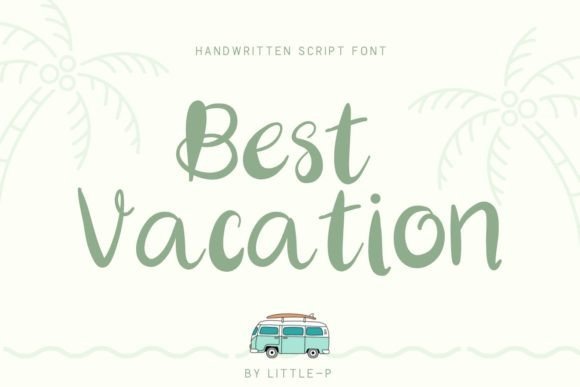
Adding a Personal Touch to Your Creations
As a designer, there’s nothing quite like the feeling of bringing a project to life. Whether it’s a wedding invitation, a birthday card, or a simple quote, the right font can make all the difference in conveying your message and capturing the essence of the occasion. And, let’s be honest, there’s nothing quite like the joy of browsing through font collections, searching for that perfect combination of style and personality.
That’s where the Best Vacation Font comes in – a beautiful handwriting script font that exudes a friendly feel and lends an elegant touch to your designs. With its calligraphy-inspired scripts, this font is ideal for all your DIY projects, from wedding invitations to T-shirts, and everything in between.
Key Features of “Best Vacation Font”
- Unique Characteristics: Features a unique blend of modern and vintage elements, perfect for travel and adventure-themed designs
- Kerning and Ligatures: Includes advanced kerning and ligature pairs for improved text readability and aesthetic appeal
Designer Review: Best Vacation Font
Overall, I think Best Vacation Font is an okay choice for your next design project. It’s a fun, playful font that can add a lighthearted touch to your designs.
- Its casual, relaxed vibe is perfect for travel-related projects or anything that needs a carefree feel.
- The font comes in a range of weights and styles, giving you plenty of options for customization.
- The script version of the font adds a nice, handwritten touch to your designs.
- The font may be too casual for more formal or professional projects.
- The characters can be a bit inconsistent in terms of spacing and alignment.
- The font doesn’t come in as many languages as some other popular fonts.
Overall, I’d give Best Vacation Font 3.5 out of 5 stars. It’s a solid choice for the right project, but it may not be the best fit for every design need. With some tweaks and adjustments, it has the potential to be a real showstopper.
Use the Best Vacation Font in combination with other fonts to add depth and variety.
Pay attention to font color and contrast to ensure readability.
Use the Best Vacation Font for:
Travel brochures and itineraries
Social media graphics and ads
Travel blog posts and articles
Printed materials, such as posters and flyers
Playfair Display is an elegant, high-end serif font perfect for creating luxurious and sophisticated designs. It features intricate details and ornate flourishes, making it ideal for use in wedding invitations, luxury branding, or high-end advertising campaigns.
Compared to Best Vacation Font, Playfair Display is more formal and sophisticated. While Best Vacation Font is playful and casual, Playfair Display is refined and elegant, making it a better choice for designs that require a level of sophistication and luxury.
Alex Brush is a beautiful, hand-drawn script font that adds a touch of elegance and sophistication to any design. It’s perfect for use in wedding invitations, greeting cards, or other designs that require a personal and handwritten feel.
Compared to Best Vacation Font, Alex Brush is more elegant and refined. While Best Vacation Font is playful and casual, Alex Brush is more delicate and sophisticated, making it a better choice for designs that require a level of refinement and sophistication.
Great Vibes is a modern, script font that adds a touch of fun and playfulness to any design. It’s perfect for use in social media graphics, advertising campaigns, or other designs that require a level of energy and enthusiasm.
What is the recommended font size for using the Best Vacation Font?
The recommended font size for the Best Vacation Font is between 12pt and 24pt. However, this may vary depending on your design requirements and the intended use of the font. It’s essential to test different font sizes to achieve the desired visual effect.